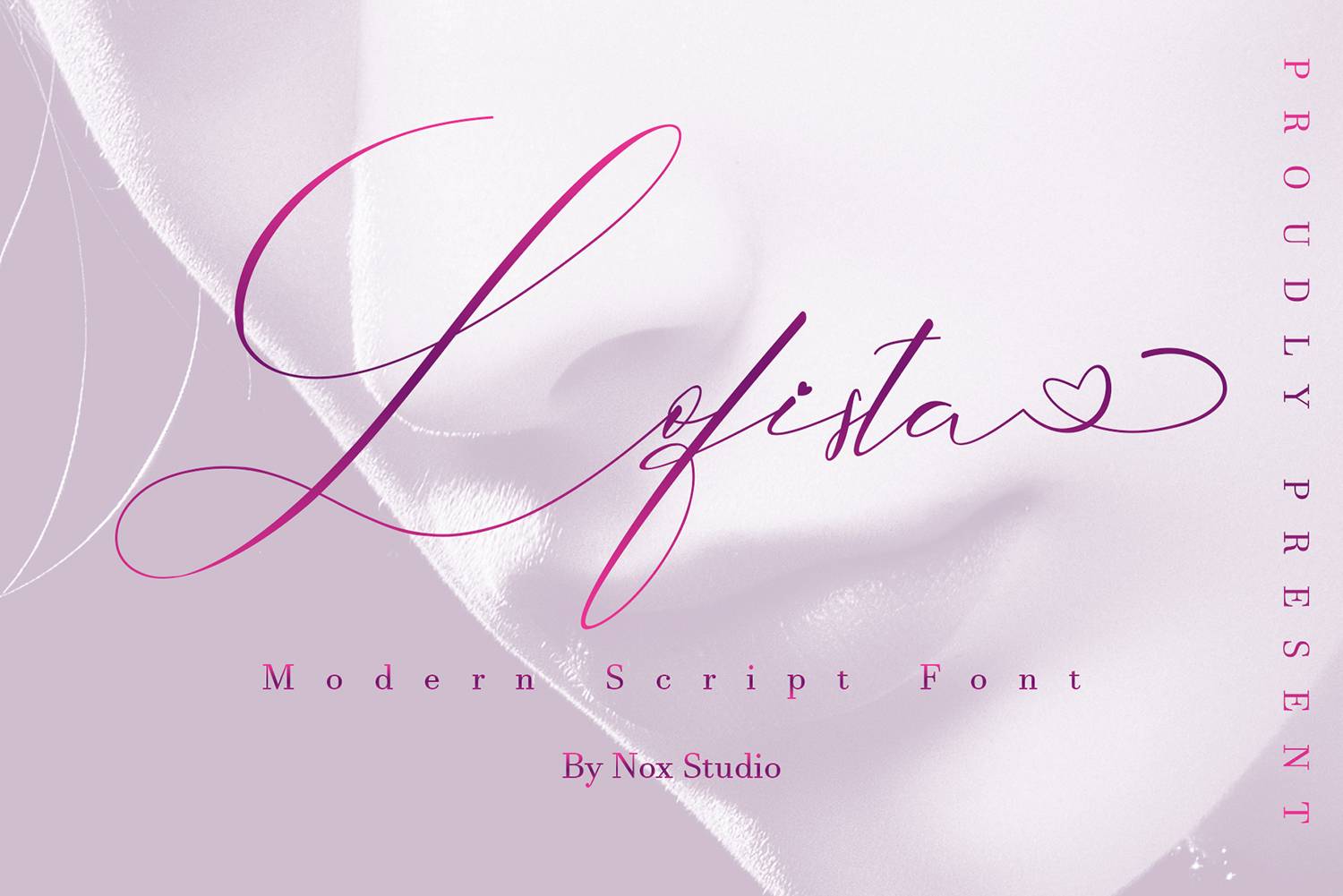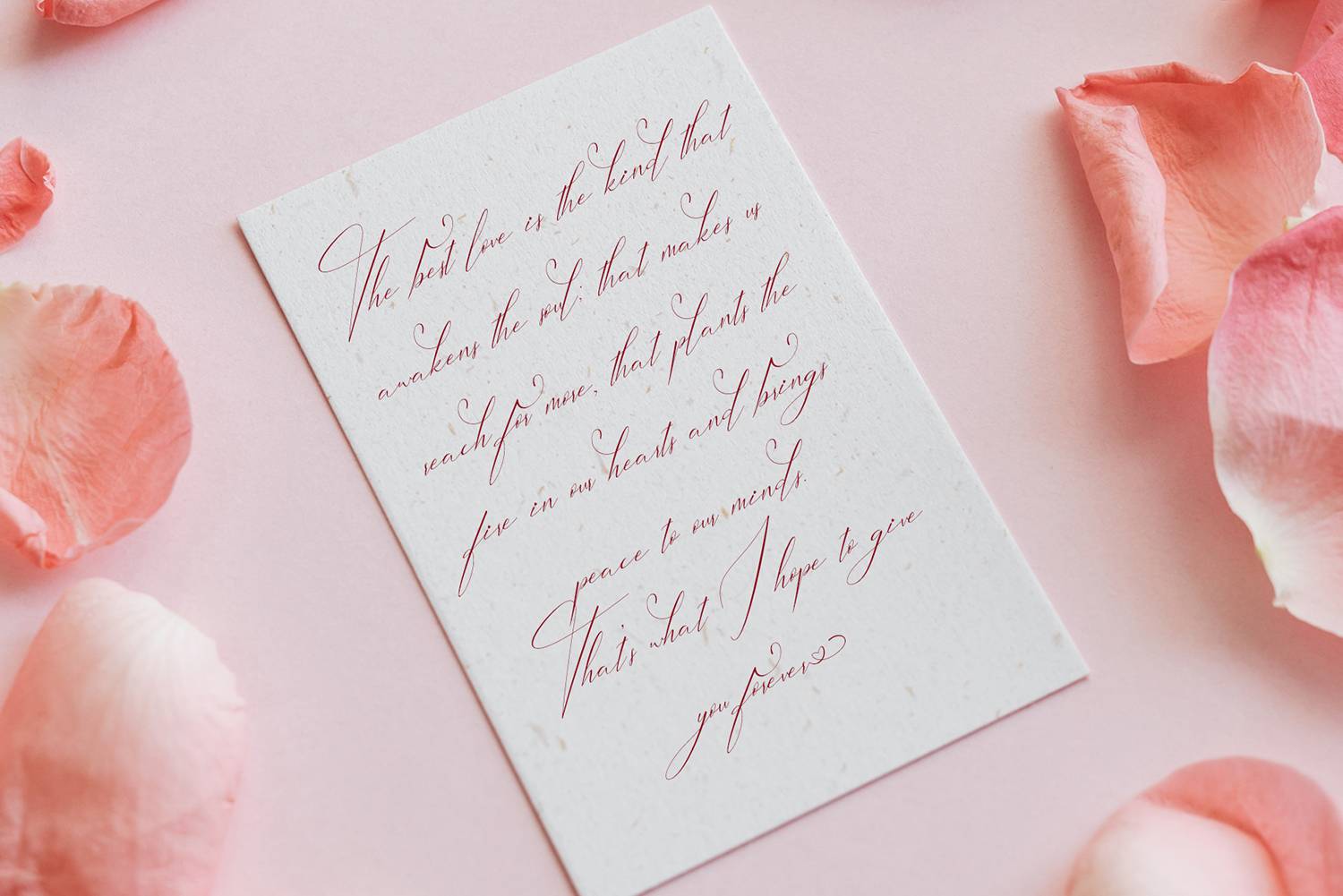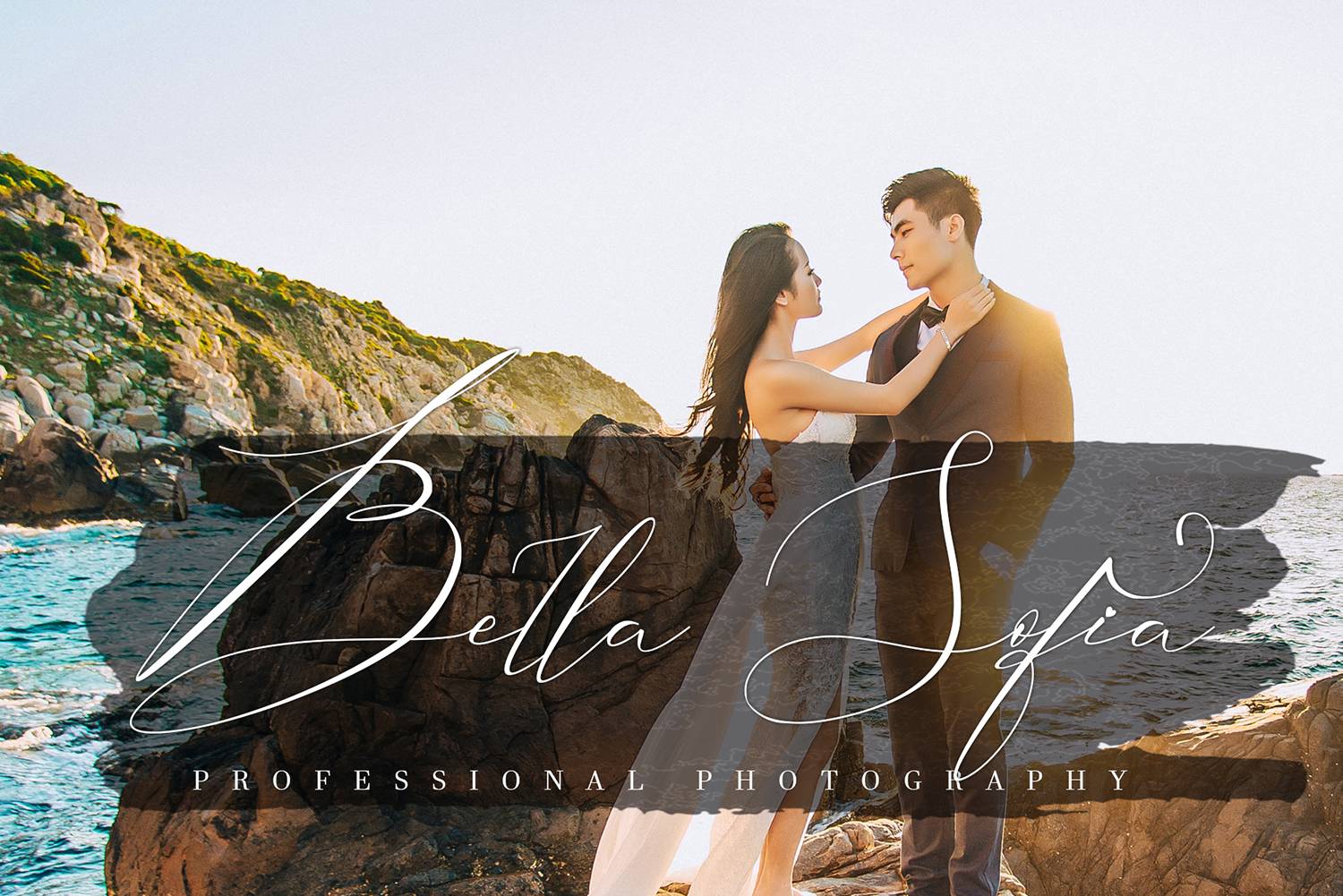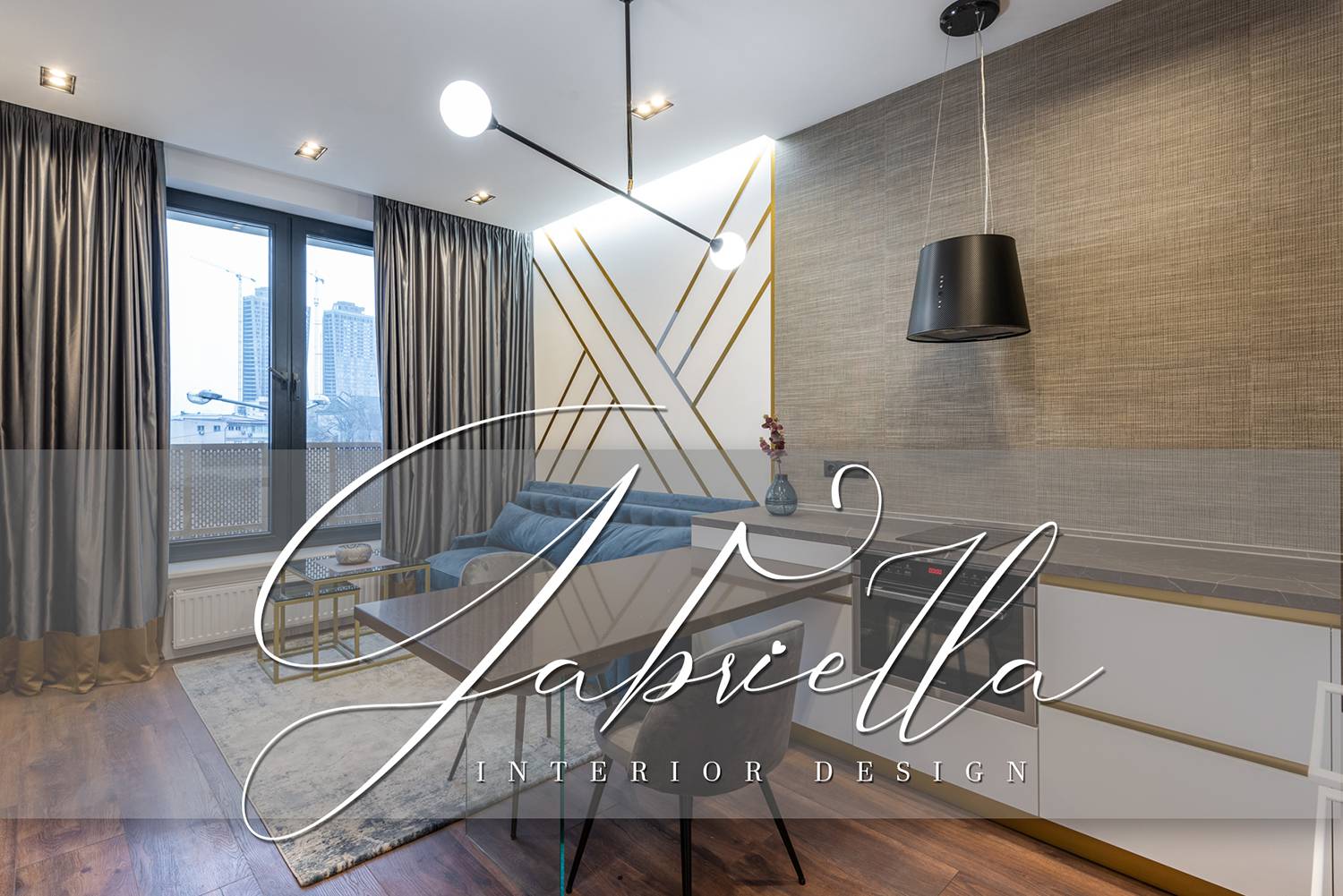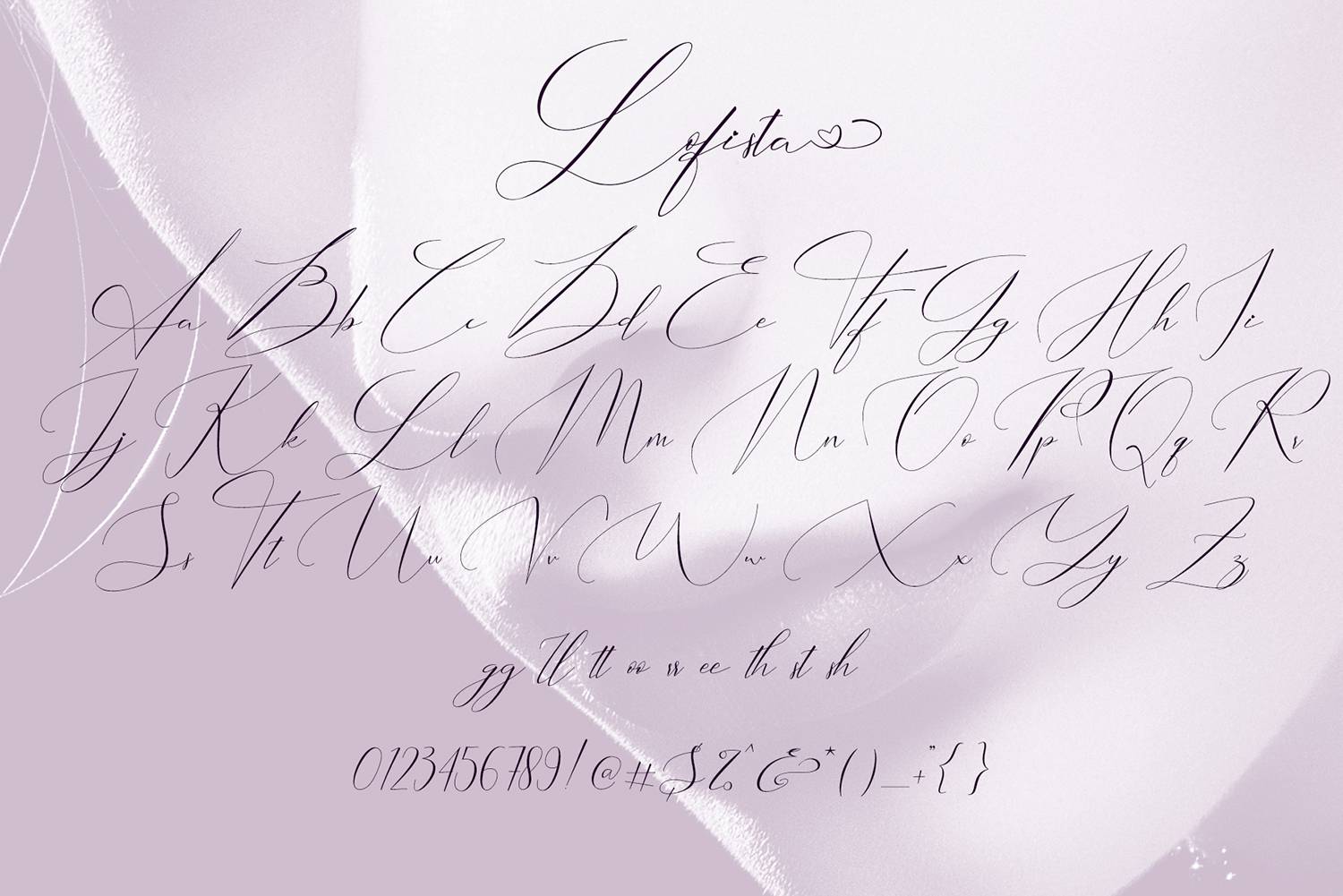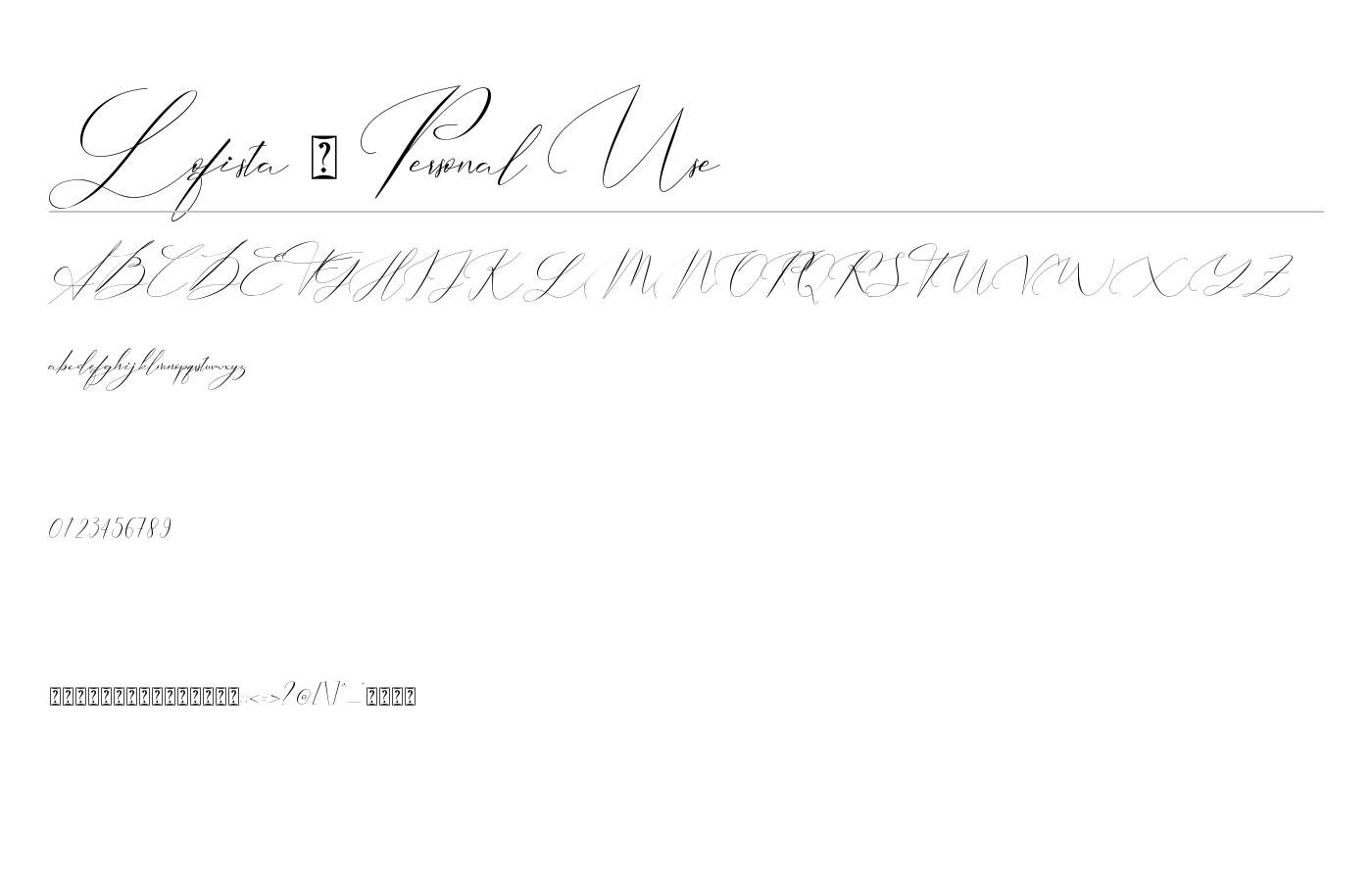
Lofista is an elegant, slender script font with delicate, flowing lines that evoke a sense of sophistication and grace. Its fine stroke weight and refined cursive letterforms make it perfect for upscale invitations, branding, and editorial use where a touch of luxury and subtle beauty is desired. This font shines in designs that benefit from a light, airy, and artistic feel.
Lofista Font
About Lofista Font
| Font family | Lofista Font |
| Release date | 2021-05-15 |
| Designer | Nox Studio 2021 |